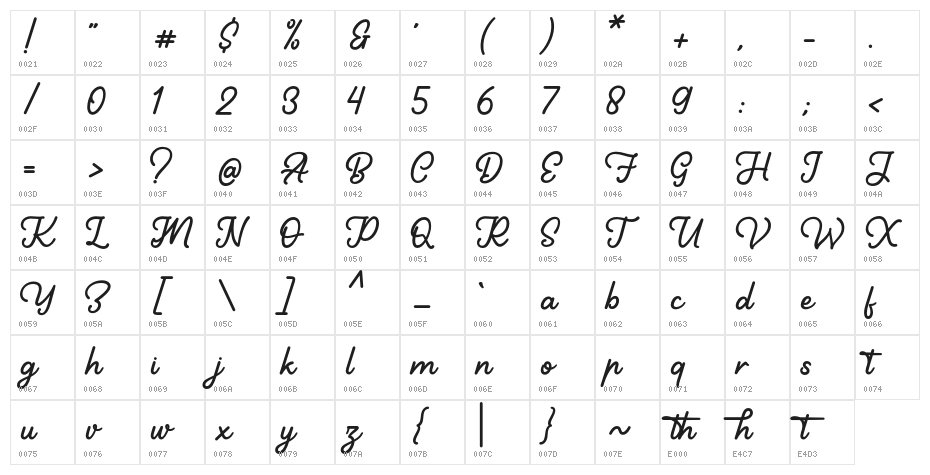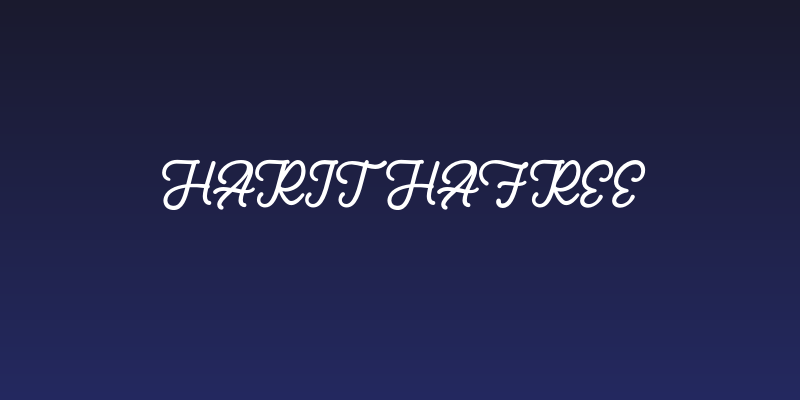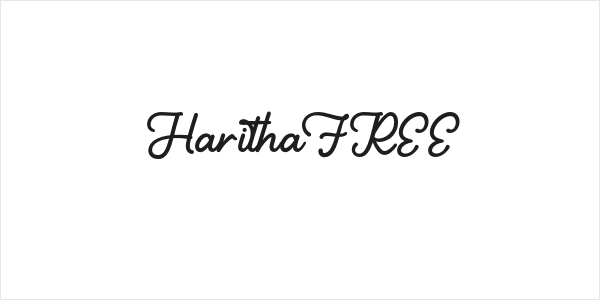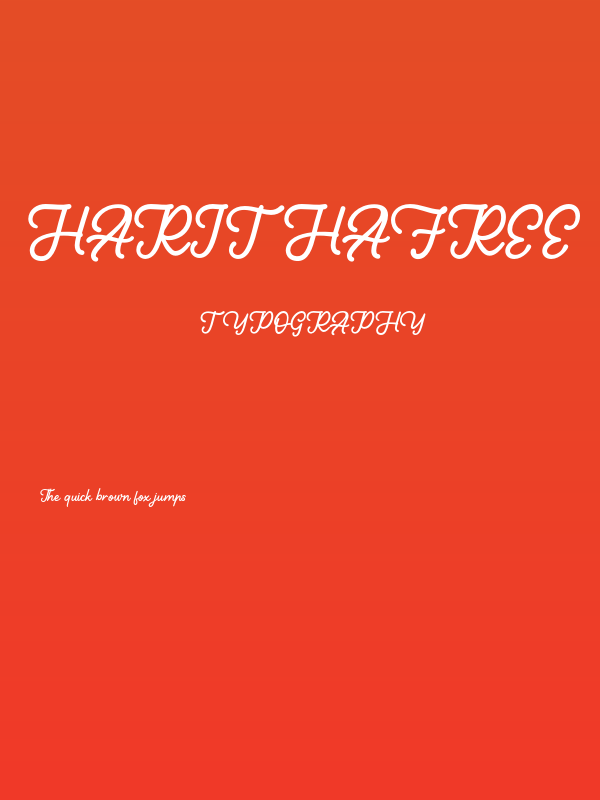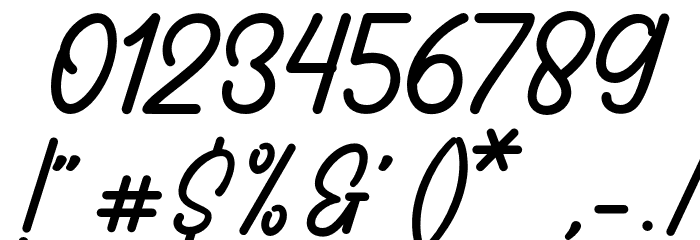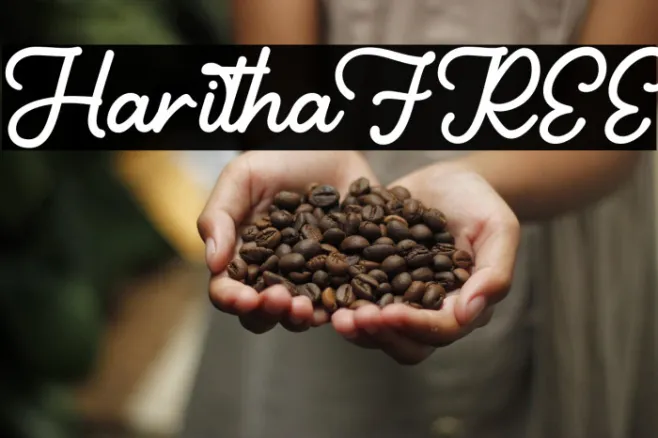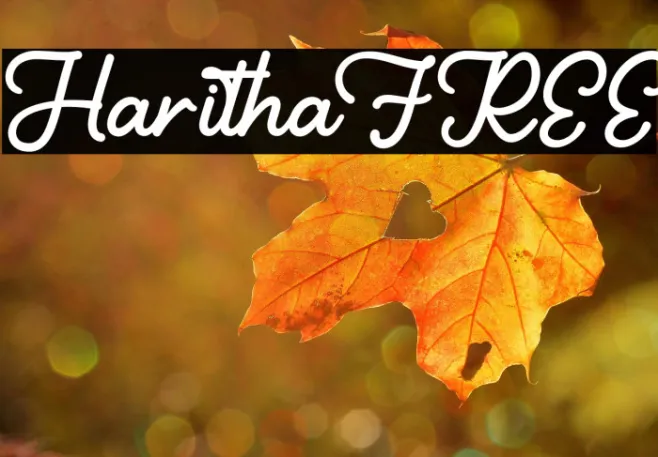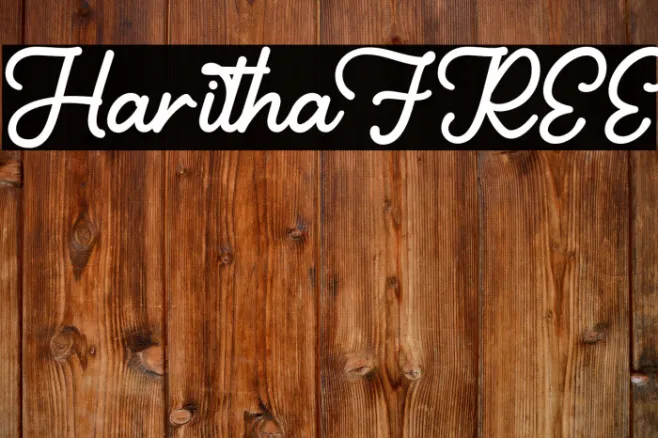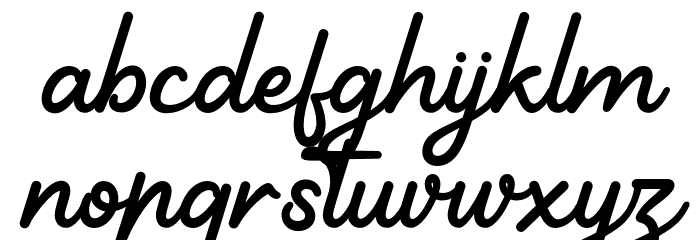
HarithaFREE Font
HarithaFREE Description
This font features a flowing, cursive style that exudes elegance and sophistication. The uppercase letters are gracefully connected, while the lowercase letters maintain a smooth, continuous flow. The numerals and special characters are designed with a similar fluidity, ensuring consistency throughout. The overall appearance is both stylish and readable, making it suitable for a variety of applications. The strokes are moderately thick, providing a balanced contrast that enhances legibility without sacrificing the decorative appeal.
| Use Case | Headlines, Invitations, Branding |
| Proposed Projects | Ideal for wedding invitations, greeting cards, elegant branding, and decorative headings. |